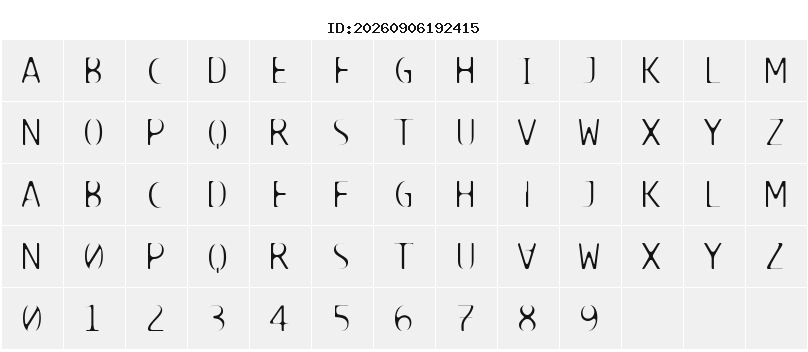
TECHNOIRE Preview
• Font Name: TECHNOIRE
• Full Font Name: TECHNOIRE-Suture
• PostScript Name: TECHNOIRE-Suture
About TECHNOIRE.ttf
TECHNOIRE.ttf is a modern, elegant sans-serif font designed for ultimate readability and visual harmony. Perfect for branding, headlines, web design, and print materials.